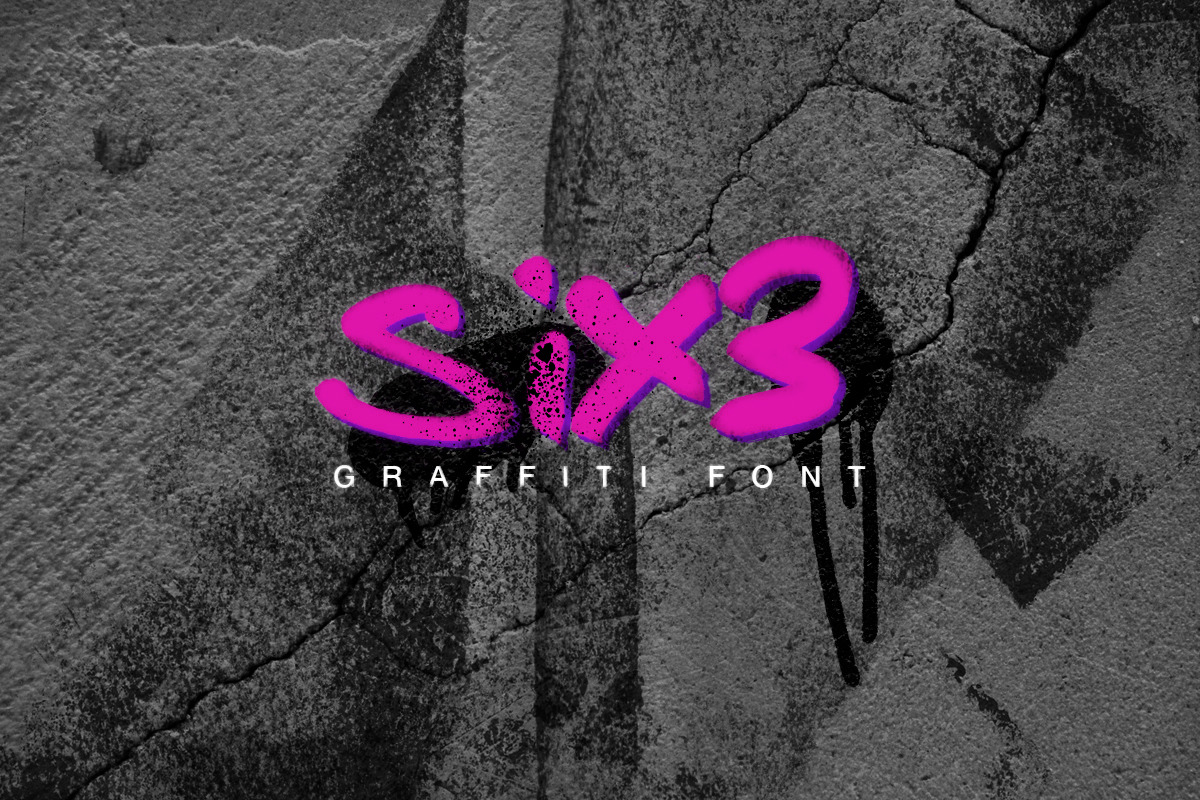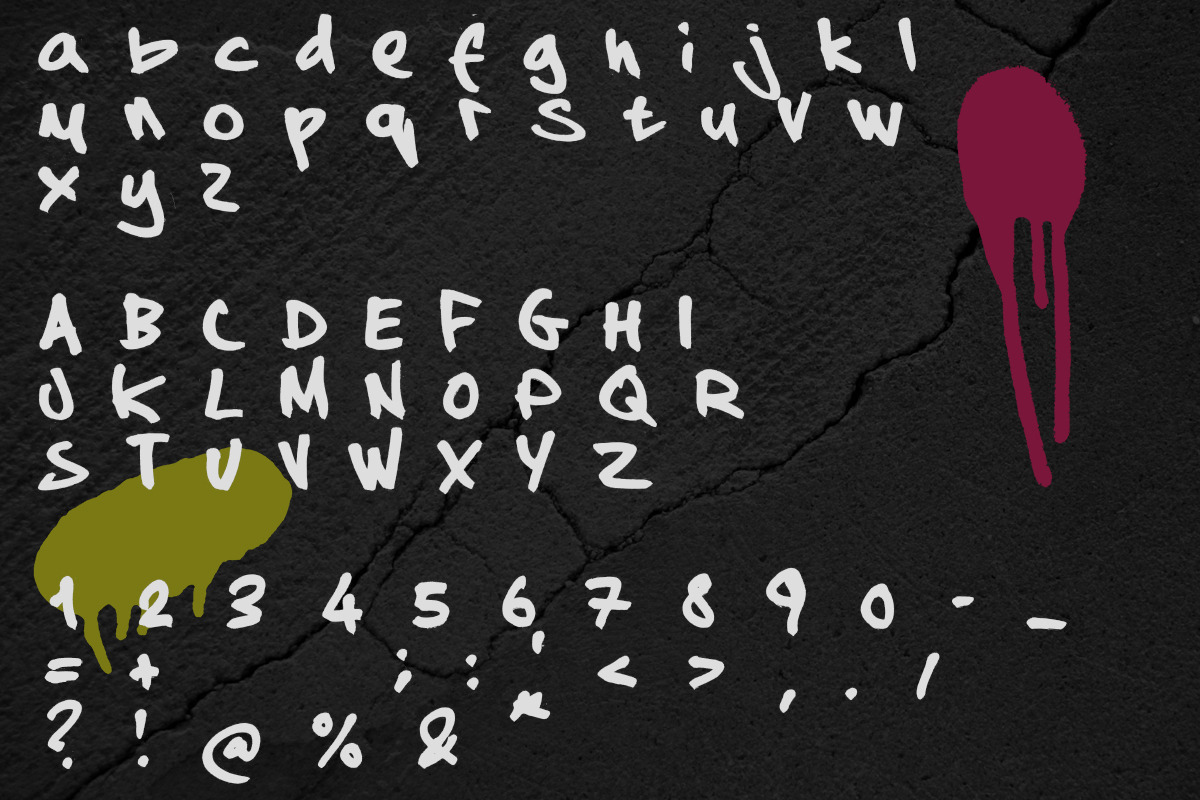
Six3 Graffiti Urban Tag Hip Hop Font
Six3 is an urban graffiti font ready to take your projects to the next level!
Inspired by the graffiti 'tags' you see on train tracks when on the train.
Six3 Graffiti Urban Tag Hip Hop Font by Kohl + Cole fits naturally into Branding, posters, packaging, typography.